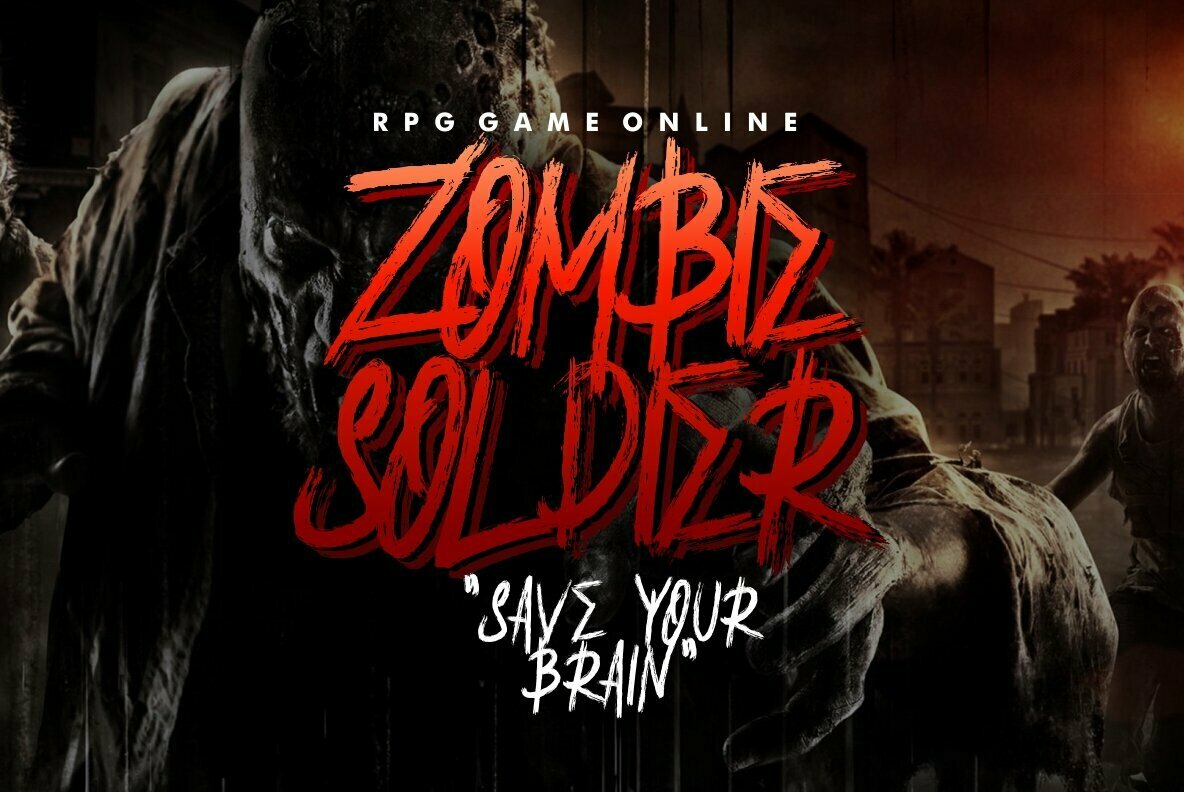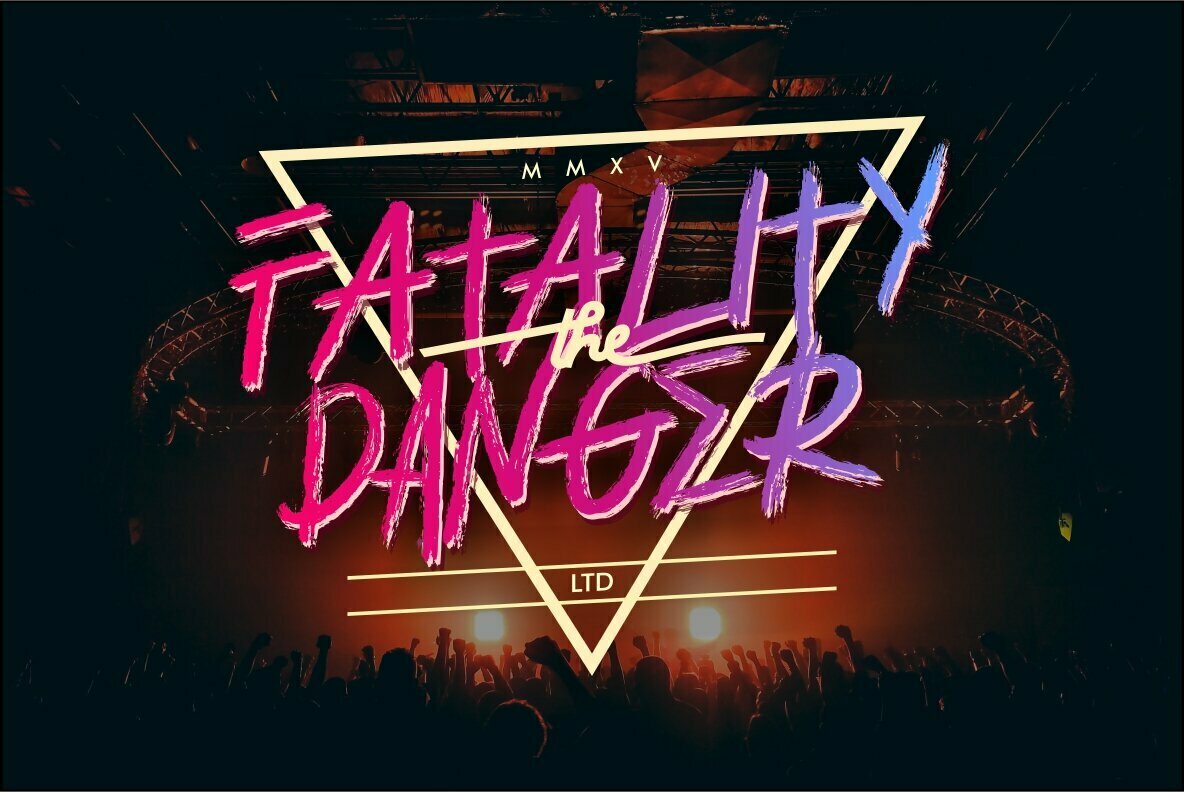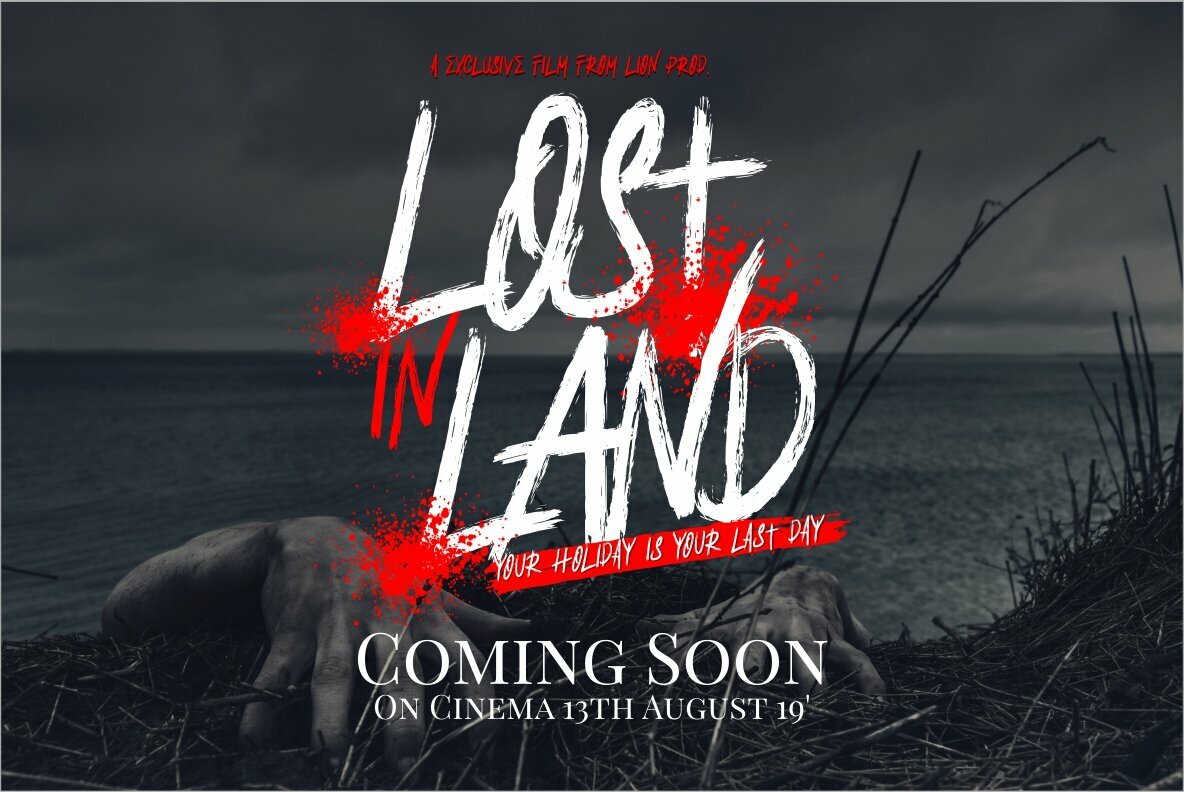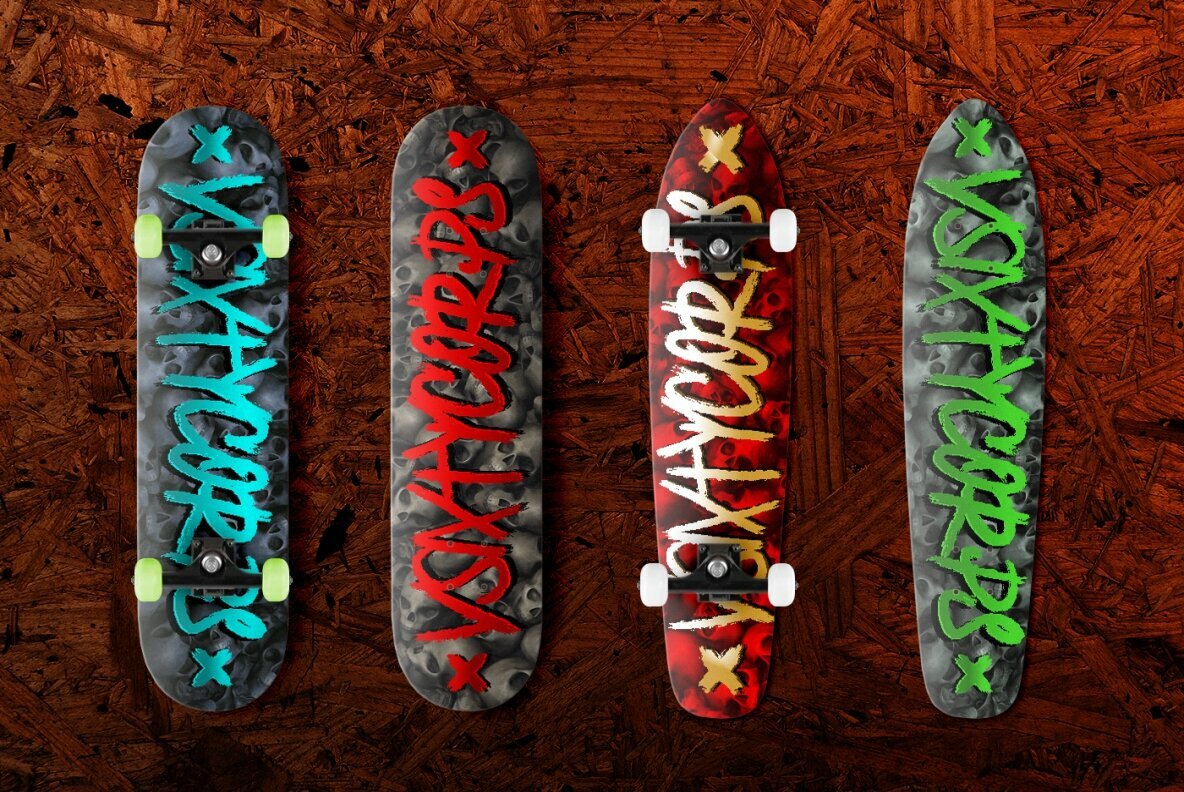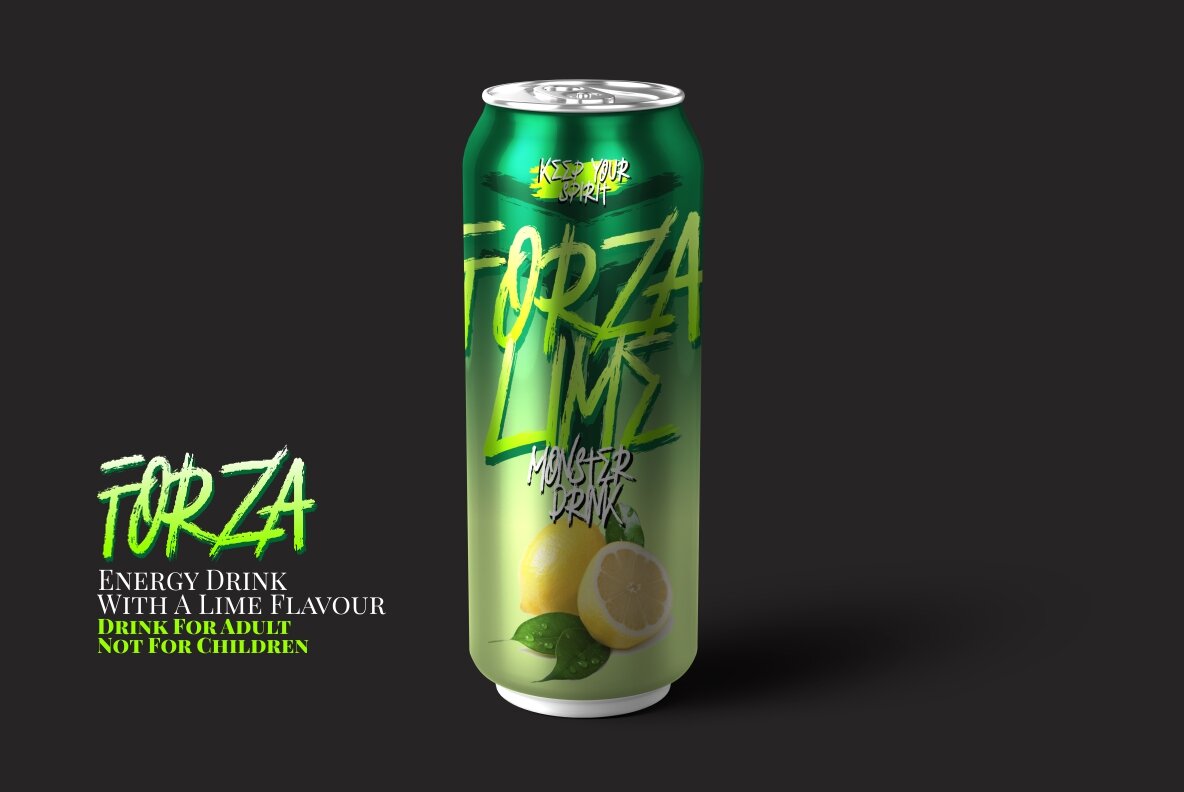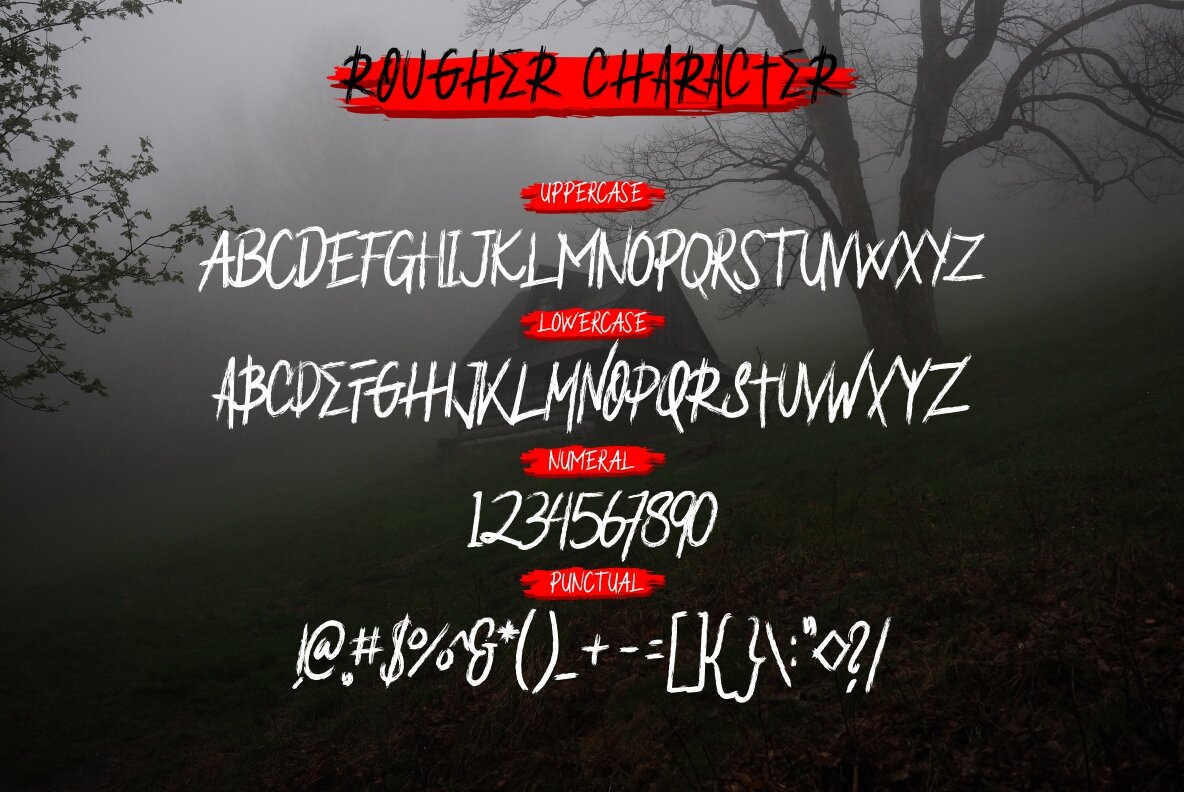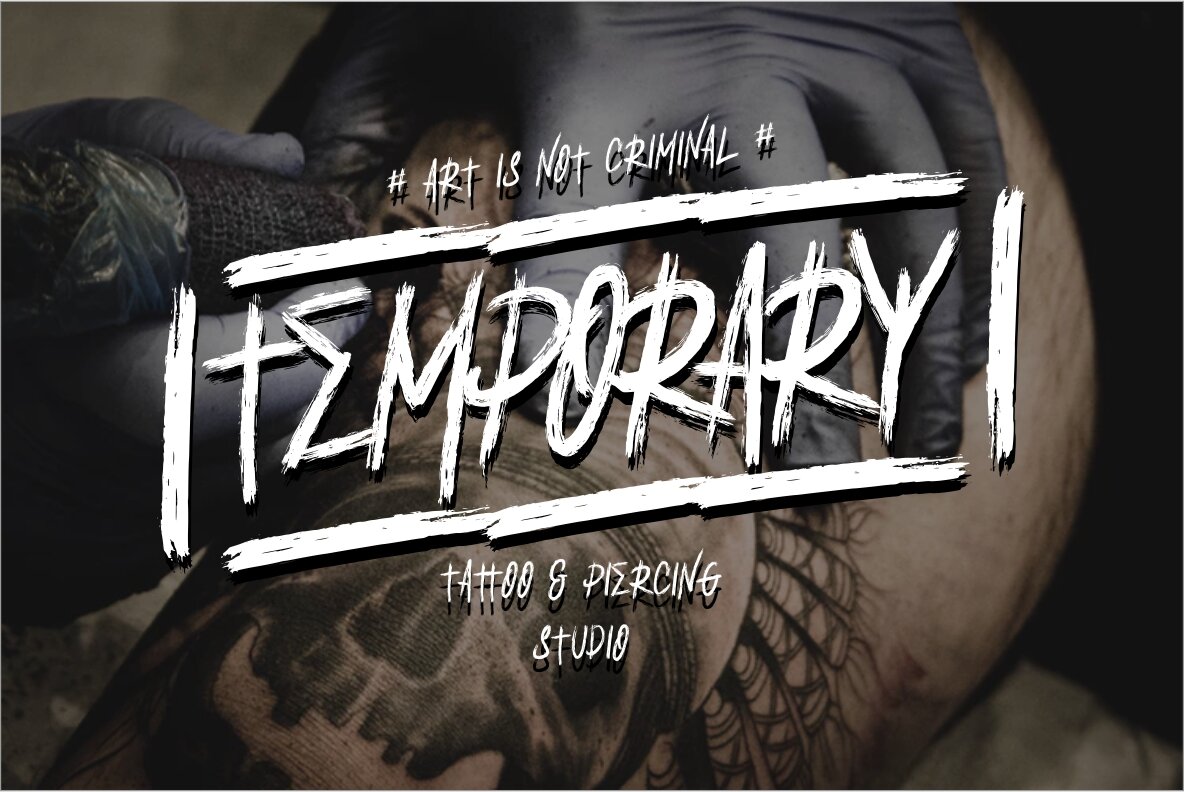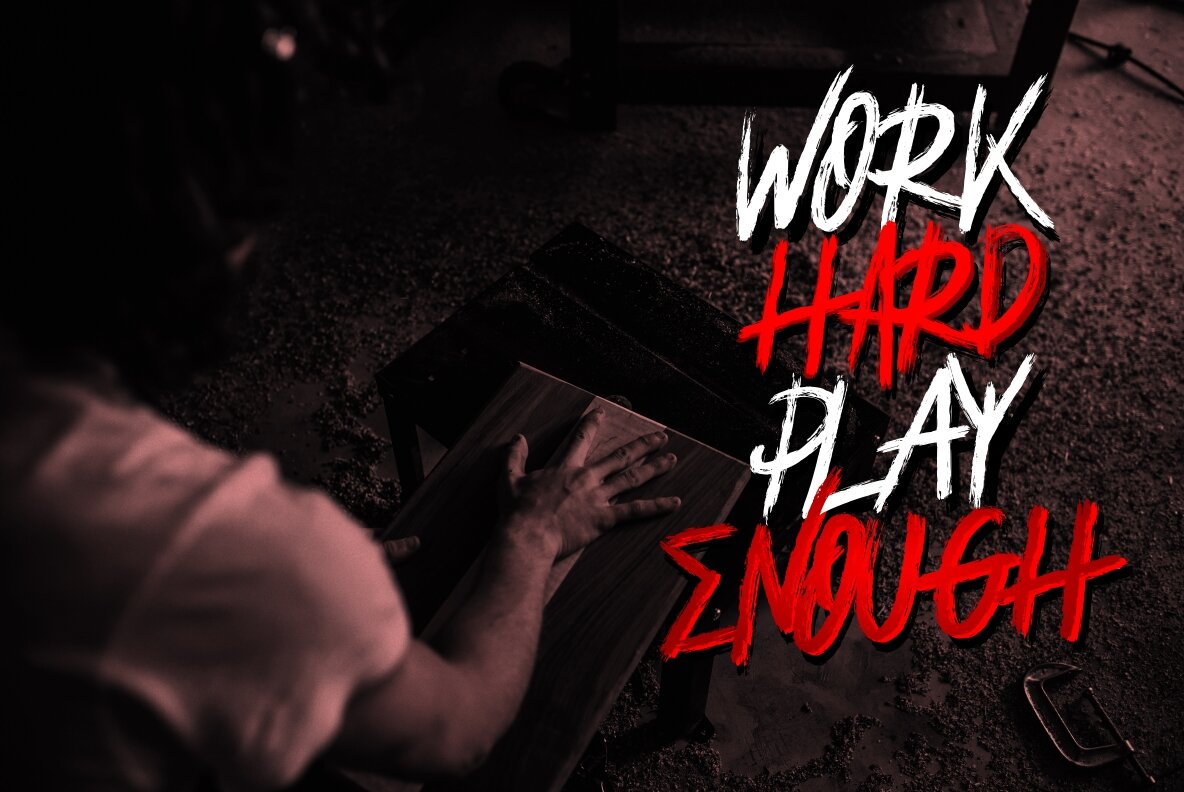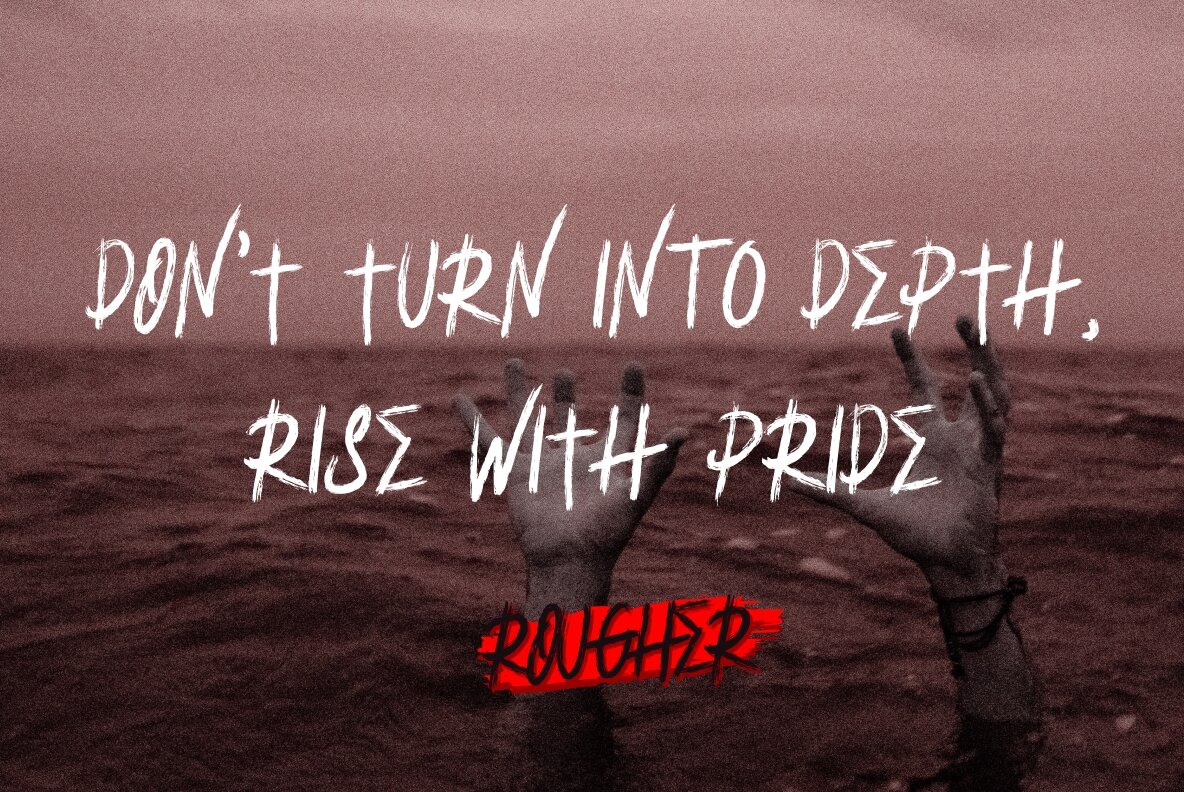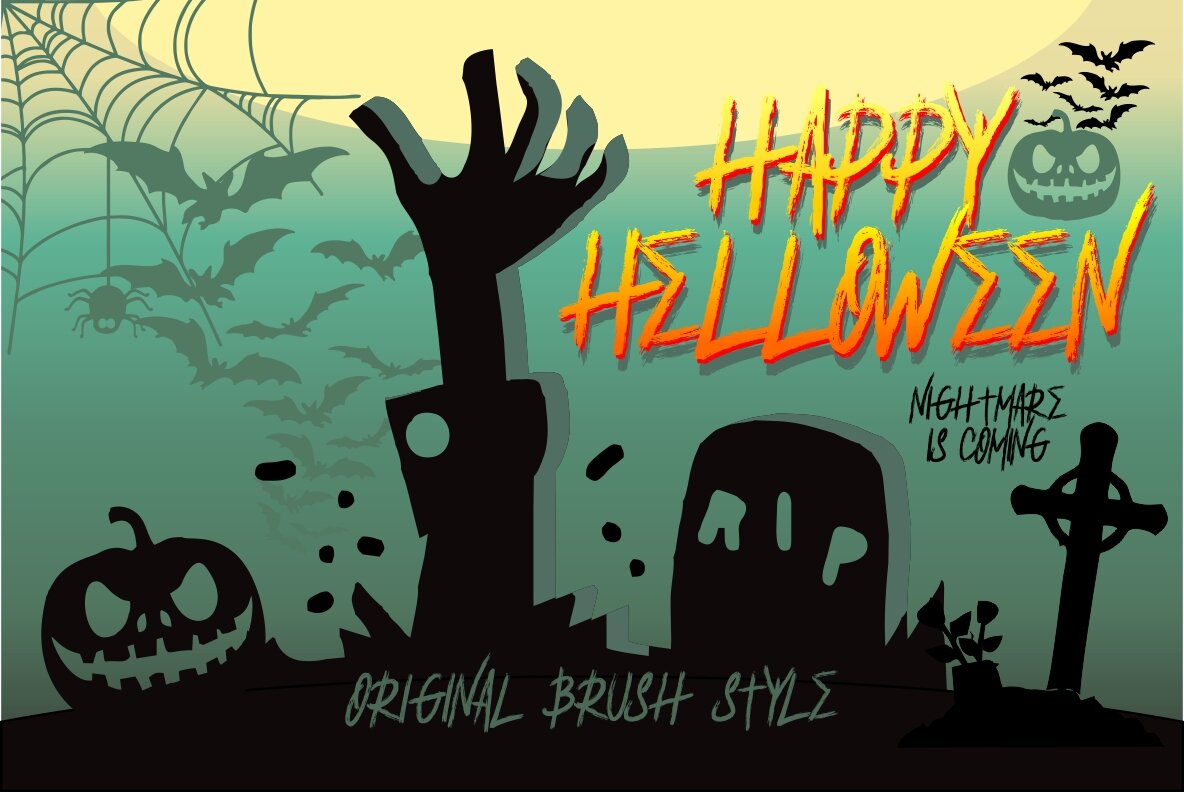
Rougher Font
Rougher
Embark on a creative journey with Rougher, a brush handwriting typeface designed by Putra Novembria Candra Kusuma. Its stylish street and natural strokes make it the perfect tool to craft visually striking hand-lettering. Whether you're refining a logo or assembling a poster, Rougher offers a unique touch to your design repertoire. From eye-catching headers to dynamic apparel designs, this versatile typeface effortlessly adapts to a vast range of creative projects. Its natural flair and distinctive aesthetic offer a toolkit for designers looking to infuse authenticity into their work.Rougher: Authentic Brush Handwriting Typeface